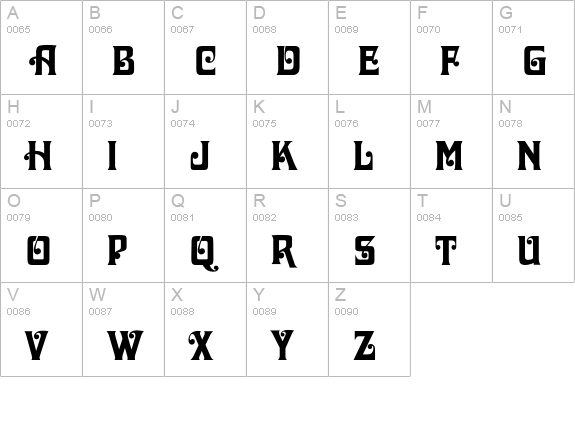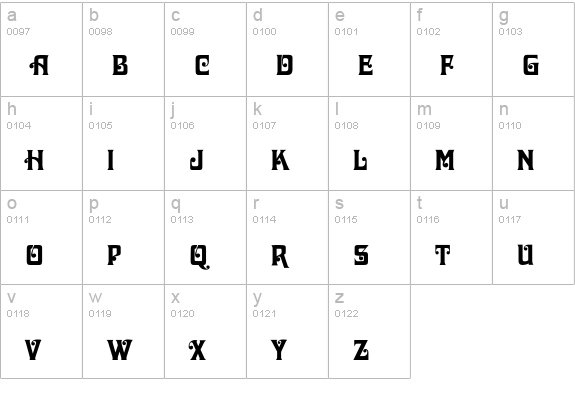
Davida font is a bold and elegant typeface that commands attention with its strong presence and distinctive style. Its intricate details and timeless design make it a versatile choice for a wide range of projects, from branding to packaging to editorial design. The sharp serifs and clean lines give Davida font a sophisticated and polished look that is sure to elevate any design it is used in. One of the best things about Davida font is that it is completely free to download at FontsMarket.com. This means that you can access this high-quality typeface without any cost, making it a valuable addition to your font collection. Whether you are a professional designer looking for a new font to add to your toolkit or a hobbyist looking to enhance your creative projects, Davida font is a fantastic choice that won't break the bank. Download it today and see for yourself the impact that Davida font can have on your designs.